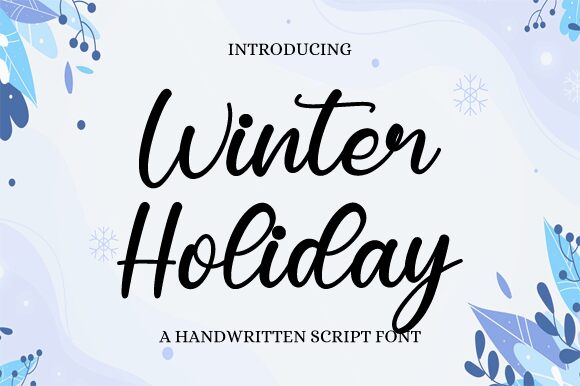
Winter Holiday
Winter Holiday, a captivating handwritten font crafted by Nirmala Creative, exudes a sense of festive charm and whimsical elegance. With its fluid, organic strokes and playful character shapes, this font radiates a warm, inviting atmosphere that evokes the spirit of winter celebrations. The unique interplay of thick and thin lines, along with the delicate ligatures and subtle variations, lend an authentic handcrafted feel to the typography, making it a delightful choice for various design projects.
This versatile font can elevate a wide range of design applications, from greeting cards and holiday-themed invitations to festive packaging and promotional materials. Its charming aesthetic seamlessly complements seasonal branding, adding a touch of festive flair to any project. Whether you're crafting a cozy holiday-inspired logo, designing captivating social media graphics, or curating a visually captivating winter-themed collection, the Winter Holiday font offers a delightful and visually striking solution.